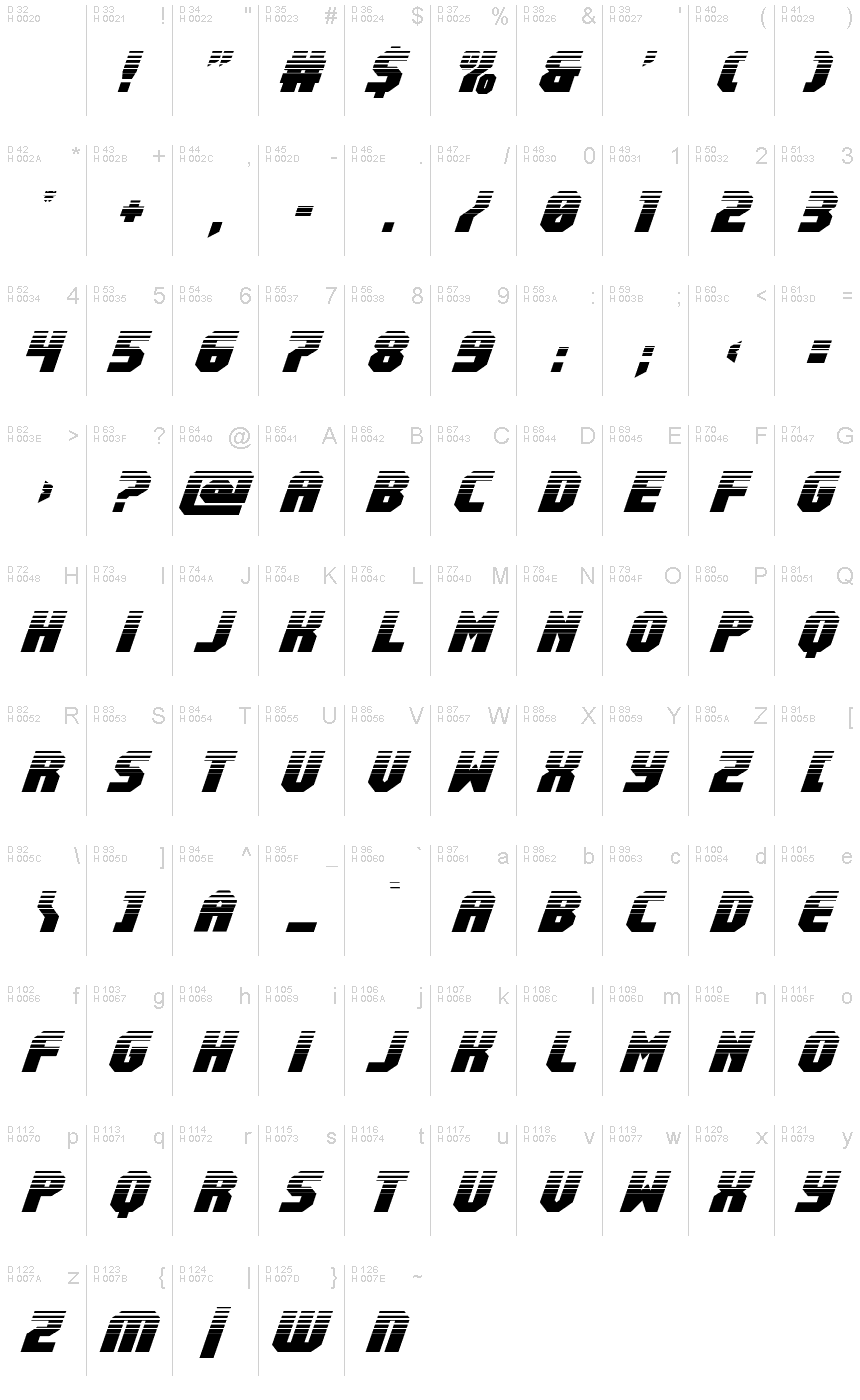
Metal Sentinel Halftone Italic
Metal Sentinel Halftone Italic is a bold, techno display font created by Daniel Zadorozny. It belongs to the Metal Sentinel family and features a modern, dynamic design with its unique halftone details. This font is perfect for creating eye-catching titles and headlines for futuristic projects, from sci-fi movie posters to tech magazine covers. With its strong presence and distinct look, Metal Sentinel Halftone Italic will make any project stand out!